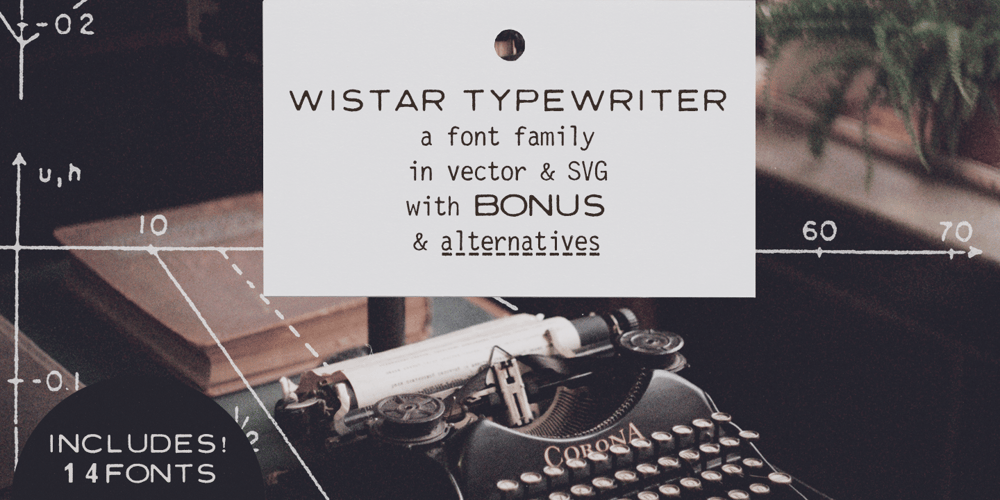
Wistar Type
Wistar Type font
Wistar Type Font Family was designed by Ana Parracho and published by Ana’s Fonts. Wistar Type contains 14 styles and family package options. Wistar Typewriter is a monospaced typewriter font in two styles: Regular and Faded, in both vector and SVG versions, with dashed line and underline alternatives and a bonus caps font, for a total of 14 fonts. This font family is versatile and ready to use in modern and retro designs alike. With its soft realistic texture, Wistar looks great in both long or short texts, in digital collages, branding and packaging, social media posts, logotypes, etc.Software requirements for the SVG font: Photoshop CC2017+ // Illustrator CC2018+No SVG support? No problem! The font includes a vector version of the font that keeps its textured goodness.